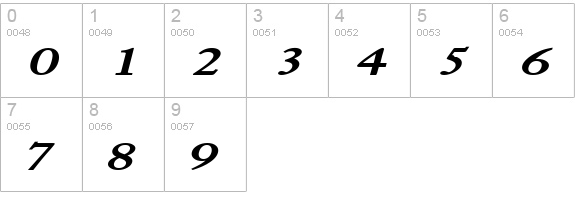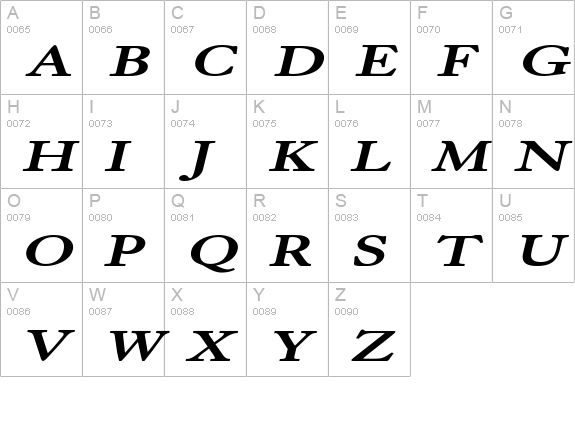
Bliss Extended Bold Italic Font Details
Bliss Extended Bold Italic is a strong, high-contrast, extended-width, italic variant in the Bliss typeface family \xE2\x80\x94 well suited to headlines, attention-grabbing titles, and strong calls-to-action.
Bliss Extended Bold Italic font exudes elegance and sophistication with its sleek and modern design. The bold italic style adds a touch of flair and individuality to any project, making it perfect for headlines, logos, and branding materials. Its extended letterforms create a strong visual impact, while the italicized slant adds a sense of dynamism and movement. What sets Bliss Extended Bold Italic font apart is not only its striking aesthetics but also its accessibility. This premium font is available for free download exclusively at FontsMarket.com, making it a valuable addition to any designer's toolkit without breaking the bank. Whether you're working on a professional project or a personal creative endeavor, this font is sure to elevate your designs and leave a lasting impression on your audience.